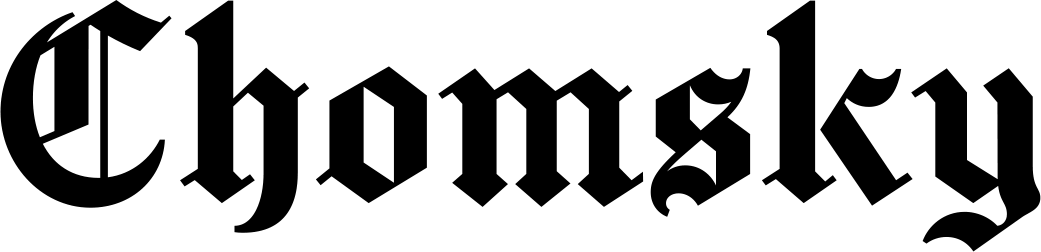
Chomsky Font
The remarkable vintage trace of this gothic font stays to give a distinctive look to your writing project via the effects of fancy geometric design. The Chomsky font is inspired by all caps and pleasing traits; bold, pointy, and angular letterforms, and comes to incorporate the mysterious quaint reflection in designing posters, movie titles, book covers, apparel, and others.